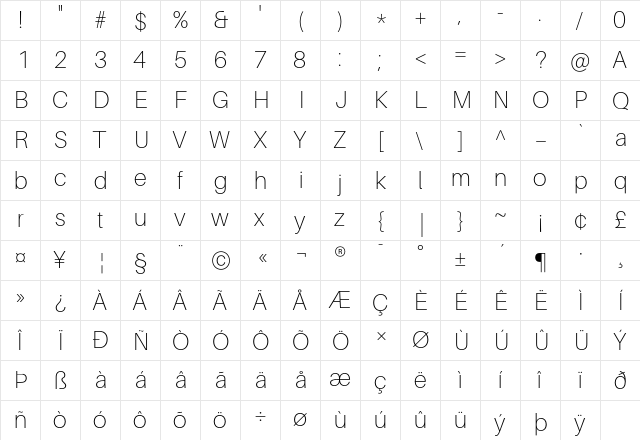
Aileron Thin Regular
| Foundry | Sora Sagano |
| Designer | Sora Sagano |
Design Context for Aileron Thin Typeface
Aileron Thin takes a measured approach to typography — its balanced proportions and neutral character make it a reliable workhorse for both digital and print work. The delicate stroke weight brings airiness and refinement to layouts.